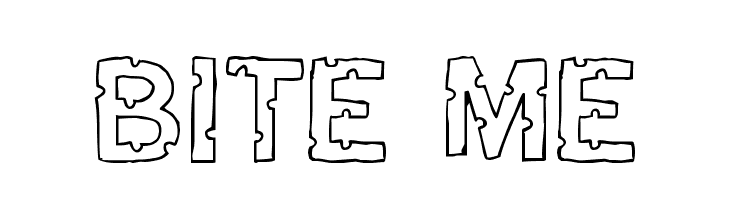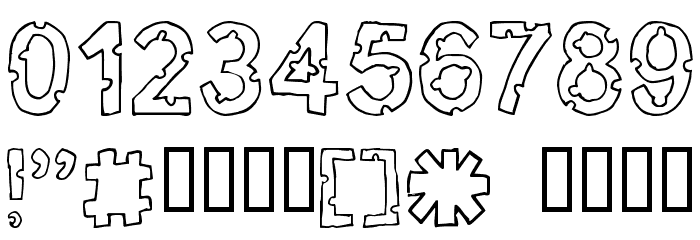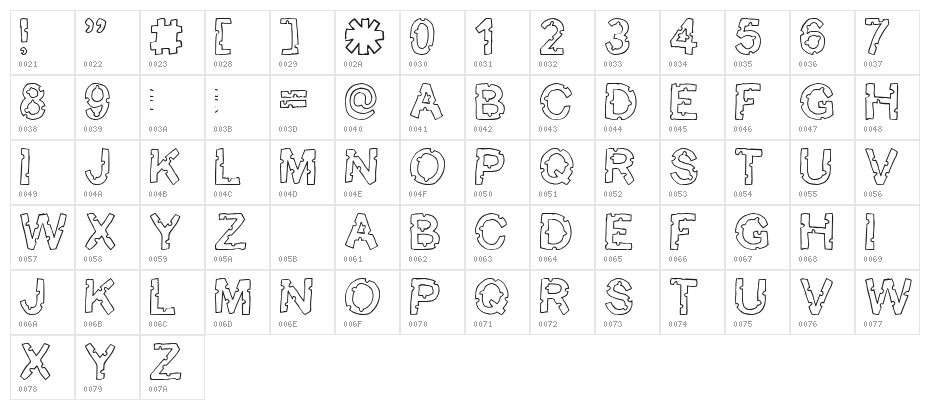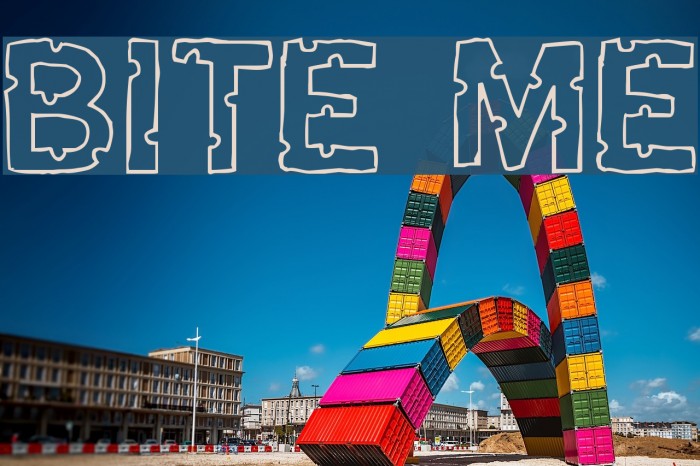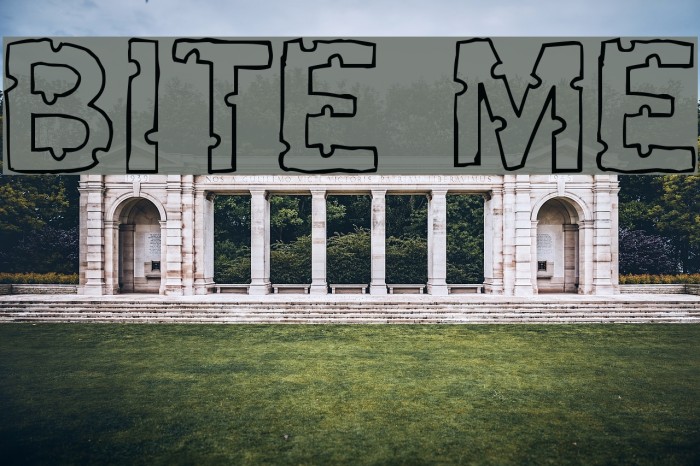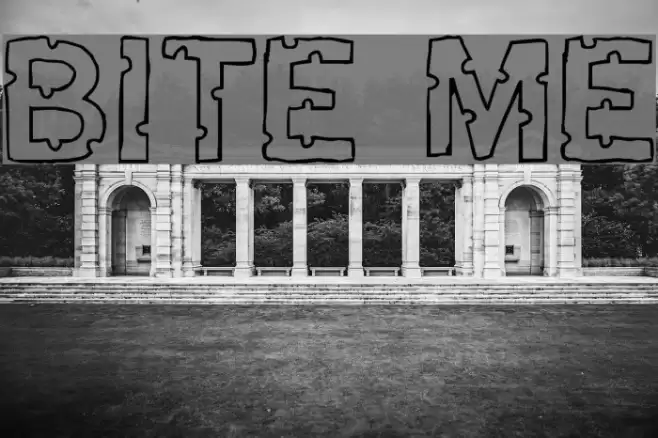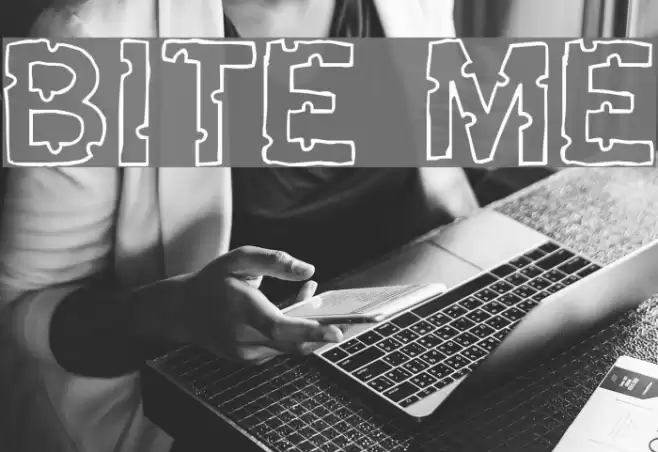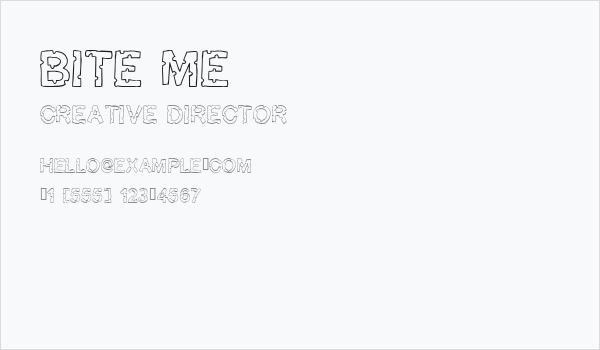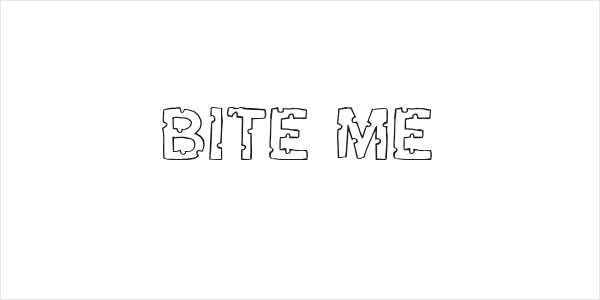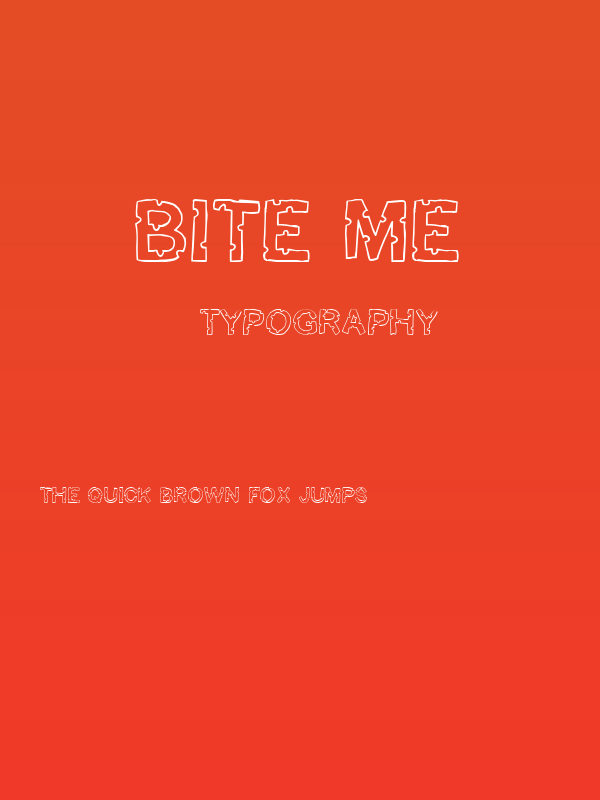
Bite me Font
Bite me Description
This font features a playful and quirky design with a hand-drawn, outlined style. Each character appears as if it has been sketched with a thick marker, giving it a bold and cartoonish appearance. The letters are uppercase and maintain a consistent height, while the numbers and special characters follow the same artistic theme. The irregular edges and whimsical shapes add a sense of fun and creativity, making it ideal for projects that require a lighthearted and informal touch. The font's unique style is perfect for children's books, comic strips, or any design that aims to capture a sense of humor and imagination.
| Overall Style | Playful, Quirky, Cartoonish |
| Proposed Projects | Ideal for children's books, comic strips, playful posters, and creative branding. |